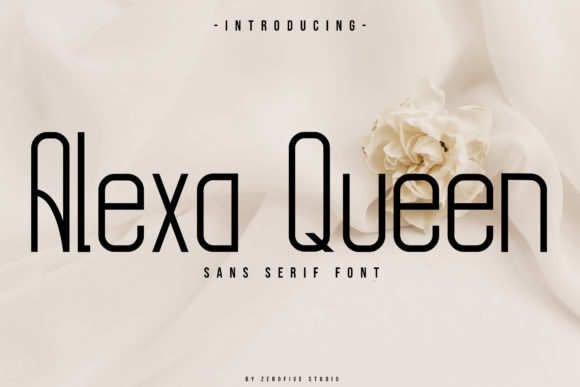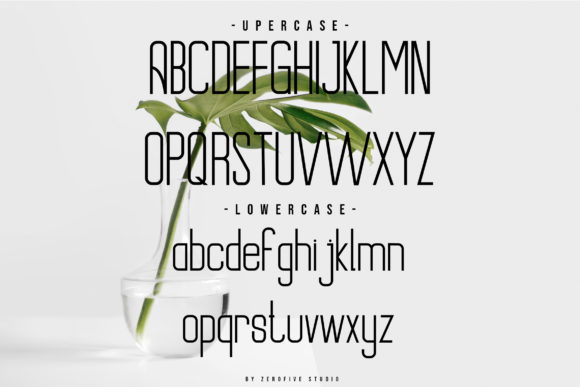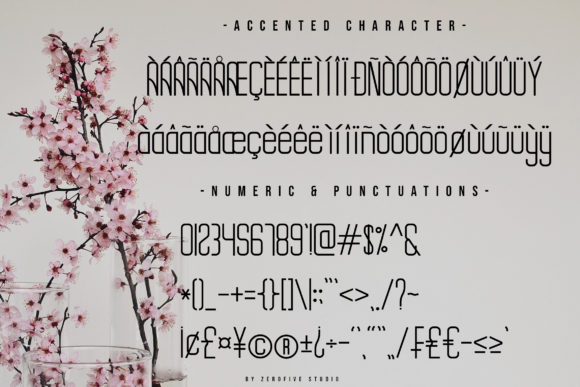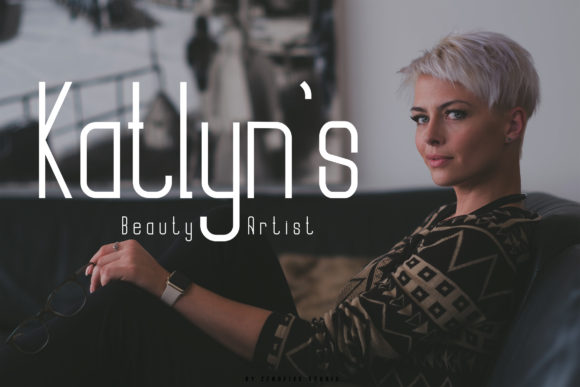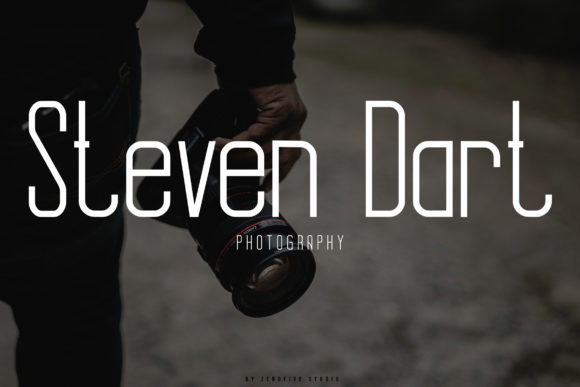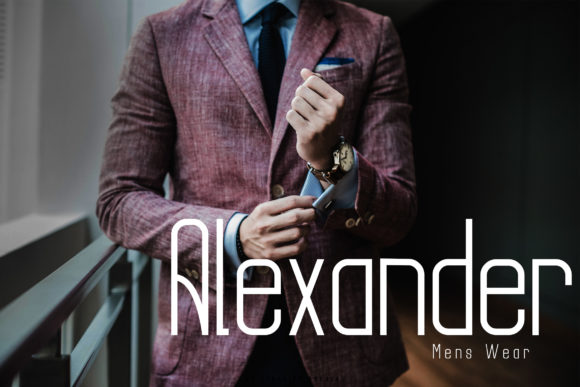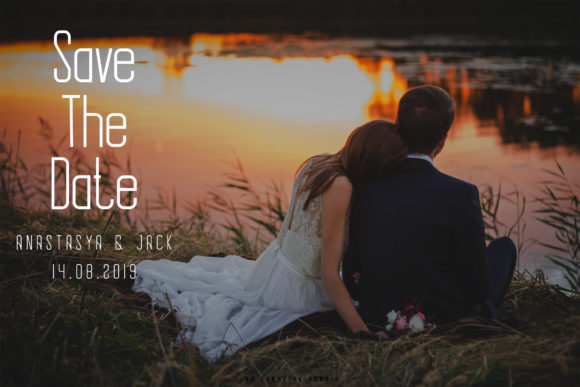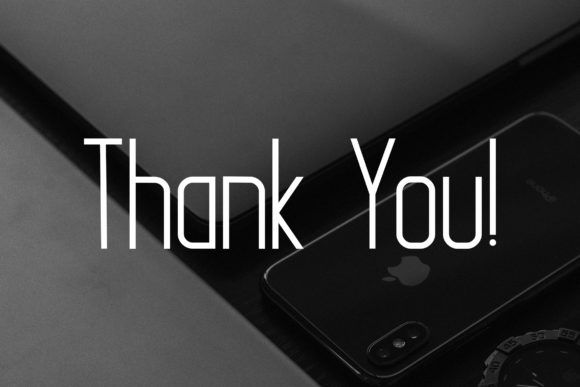
HomeSans Serif FontsAlexa Queen Font Sans Serif Fonts Alexa Queen Font FacebookTwitterPinterestWhatsApp Alexa Queen Font 1 of 8 About Alexa Queen Font Alexa Queen is a simple and modern sans serif font that will turn any design idea into a true standout! DOWNLOAD NOW People also explored Julliet Font Angelia Font The Ghost Font Dandelion Font Serendipity Font Spring Roll Font Straight Forward Font Nakless Font Delaney Rubi Font 151 0 TagsAlexa Queen Font Previous articleQueental FontNext articleNesans Font LEAVE A REPLY Cancel reply Comment: Please enter your comment! Name:* Please enter your name here Email:* You have entered an incorrect email address! Please enter your email address here Website: Save my name, email, and website in this browser for the next time I comment. Personal Use Free Lazy Sunday Personal Use Free Read more about this font Abuget Free Script Personal Use Free Read more about this font Font Slice Personal Use Free Read more about this font Hommy You Personal Use Free Read more about this font BLOG Free vs Paid Fonts: Why Investing in Premium Fonts Is Worth It Free vs Paid Fonts: Why Premium Fonts Are Worth It in 2025 The debate of free vs paid fonts continues in the design world. While... Elegant Wedding Invitation Fonts – Handwritten & Script Fonts Best Fonts for T-Shirt Design – Top 2025 Picks The 10 Best Handwriting Fonts to Add Personality to Your Designs